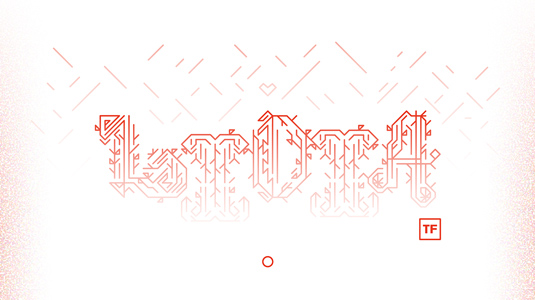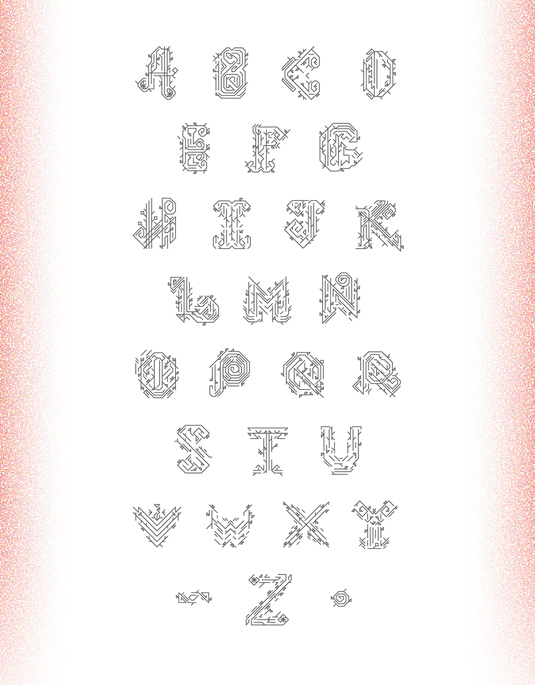
Font of the day: Lidia
Every day we showcase the best fonts on the web. Today it's Lidia by Daniel Fernández, which is free for personal use.
Lidia by Daniel Fernández
Today's font of choice is an experiment by designer Daniel Fernandez. "It was inspired by my late grandma, Lidia, and her love for life," he comments. "This font draws from her two biggest passions: nature and stitching."